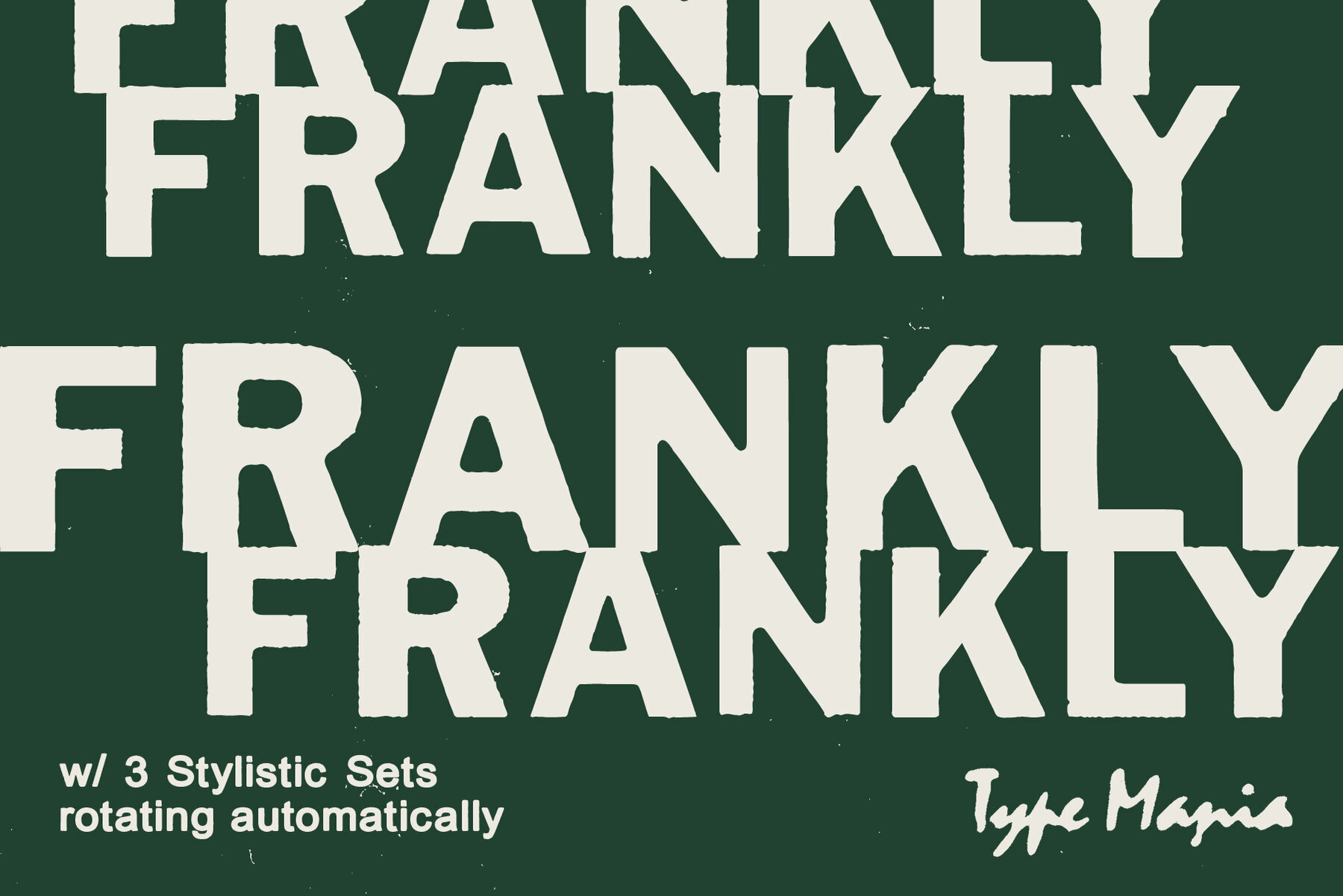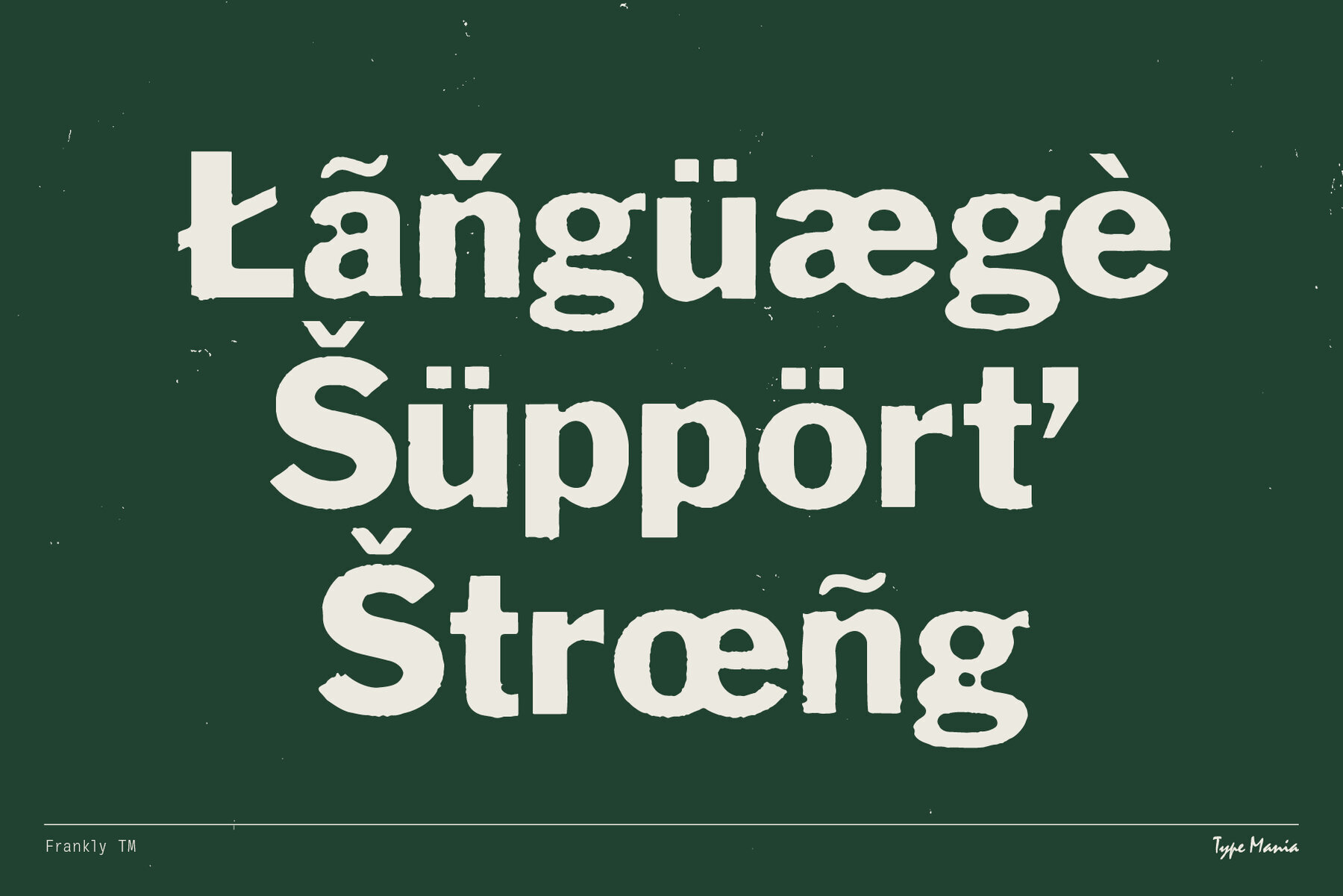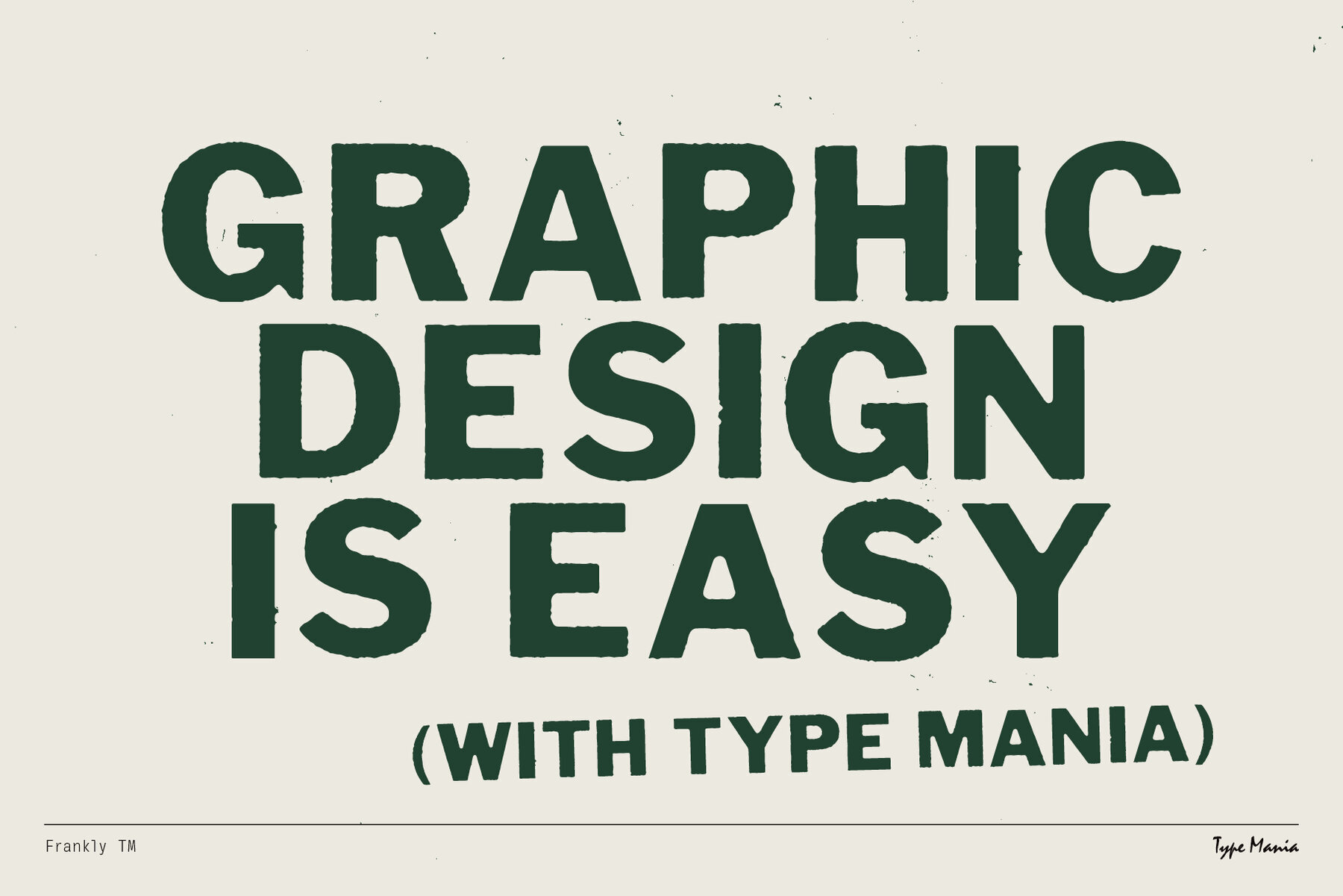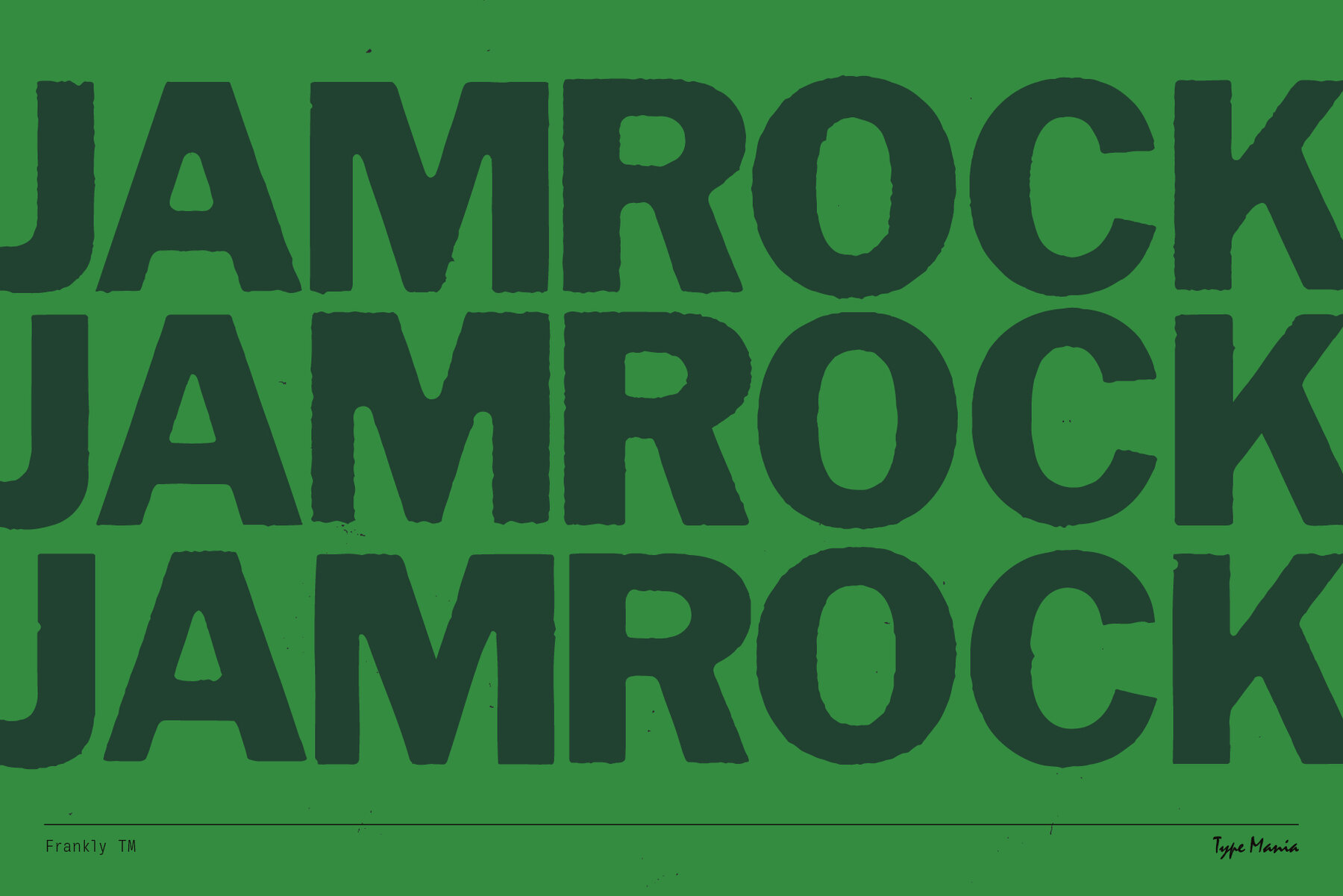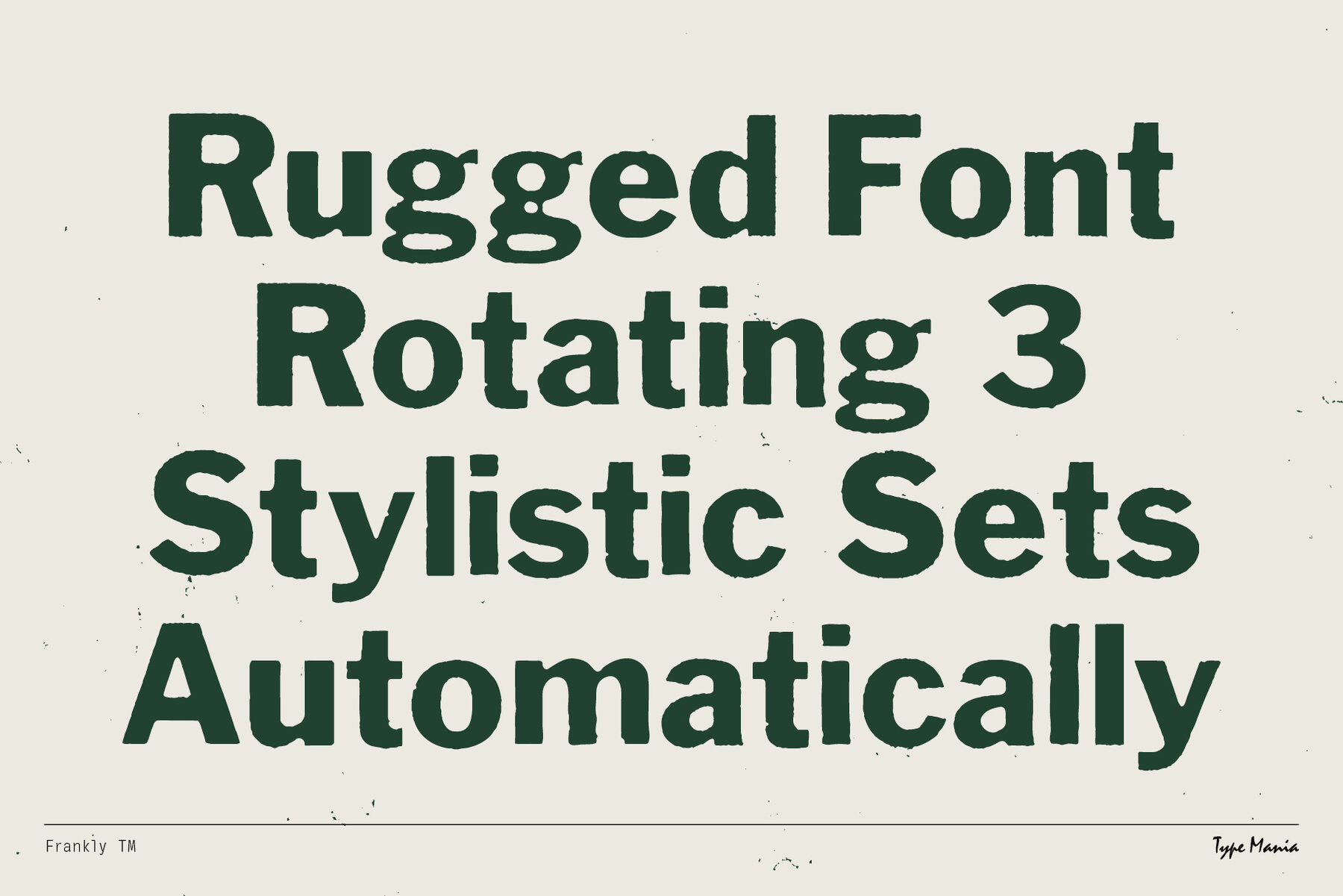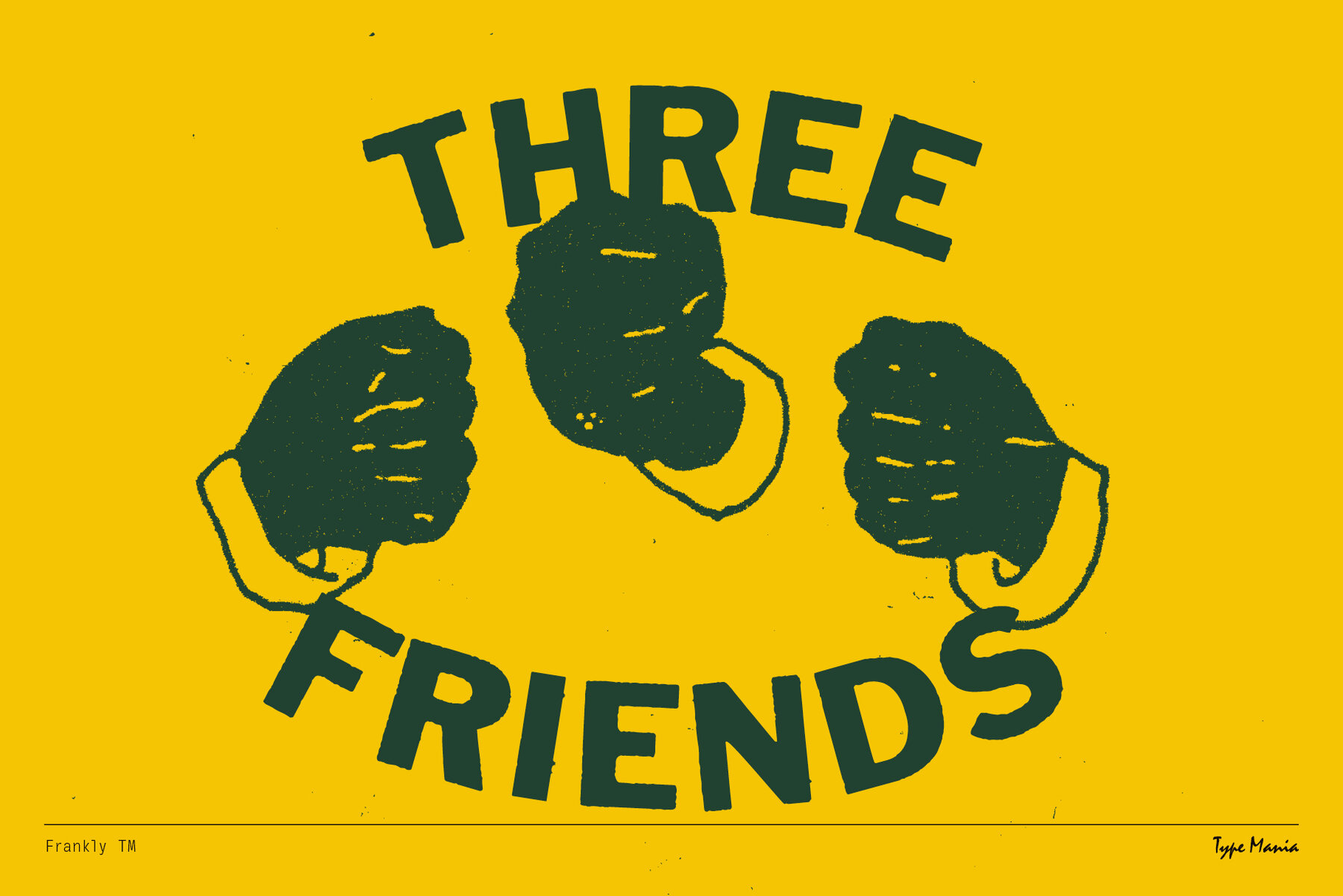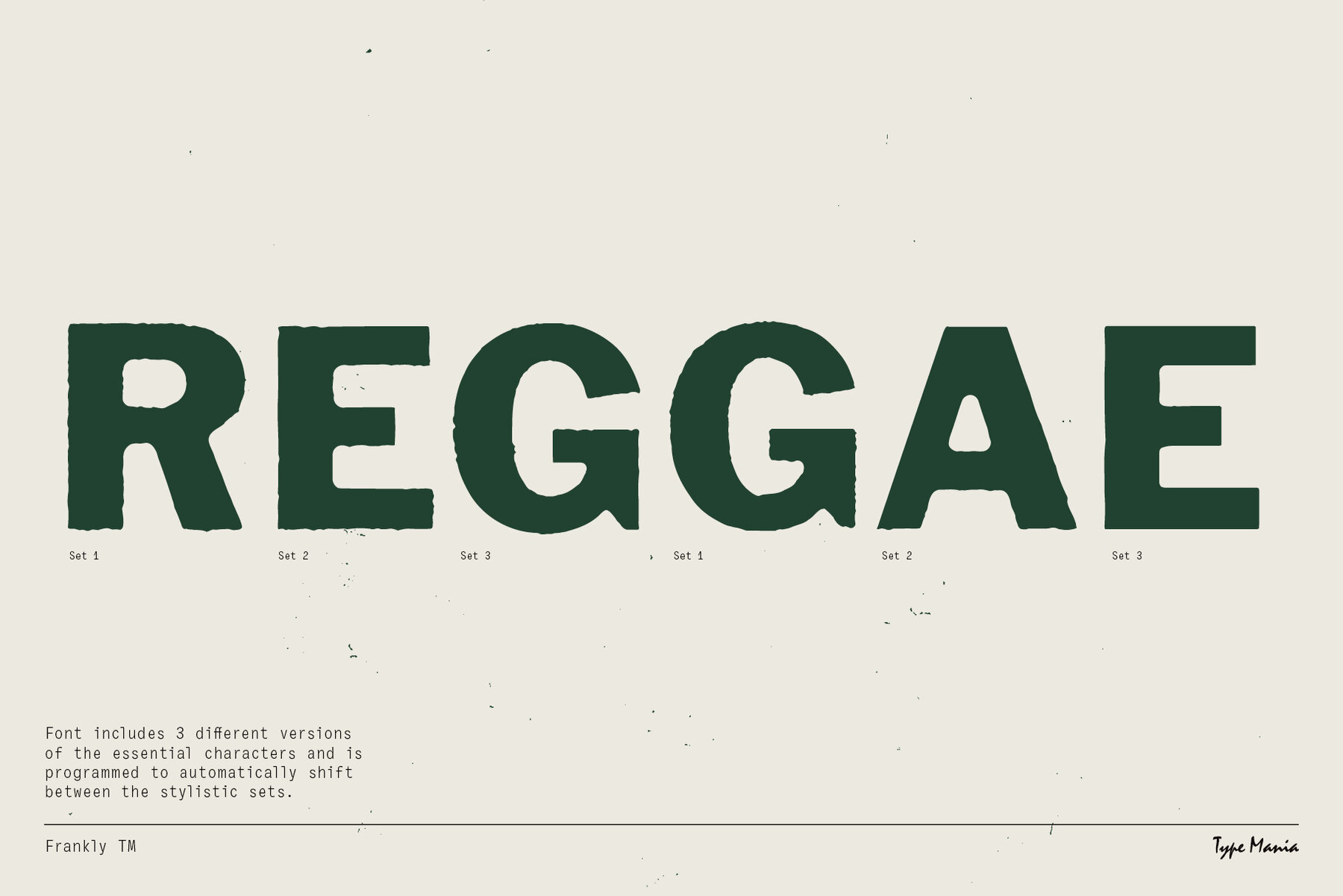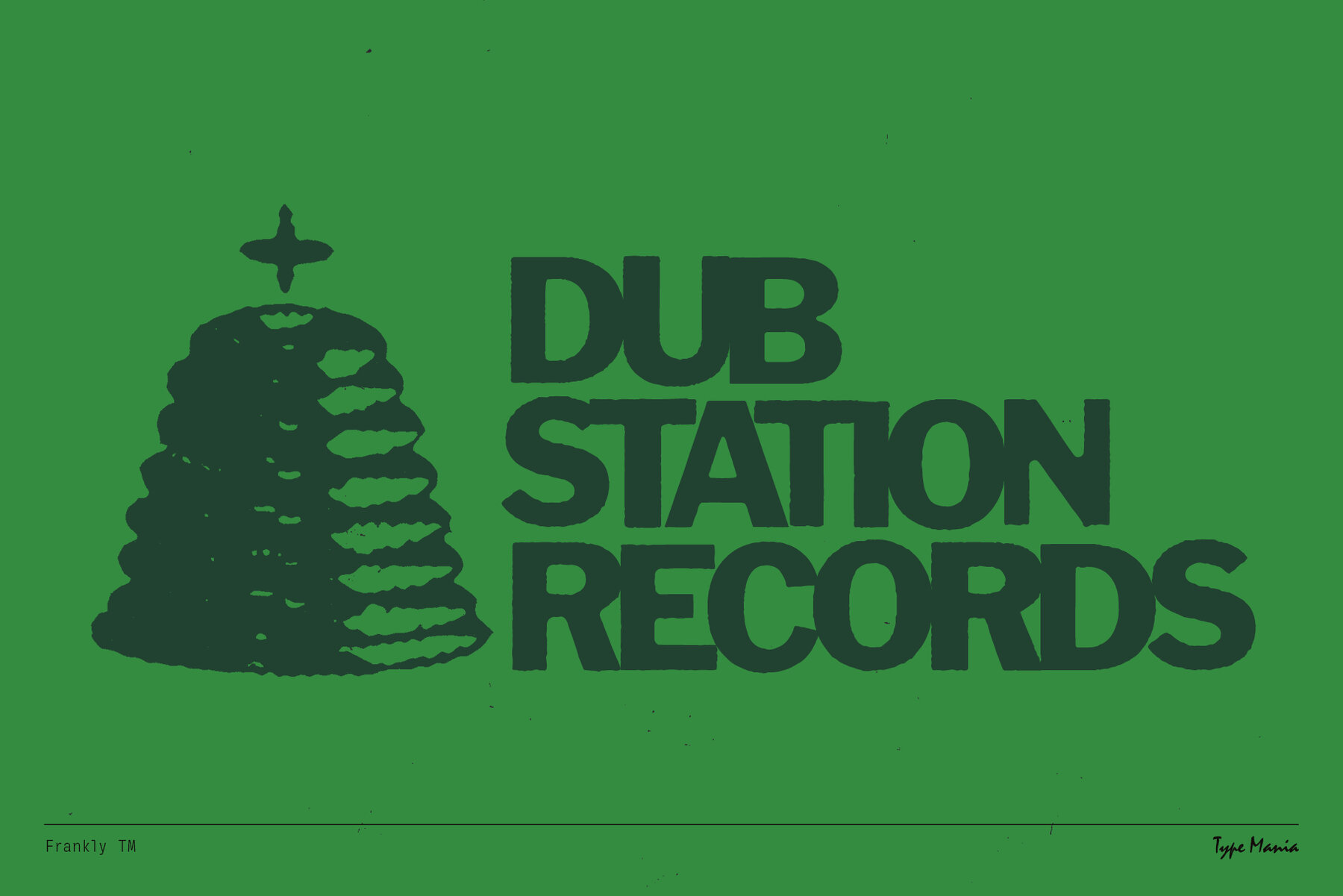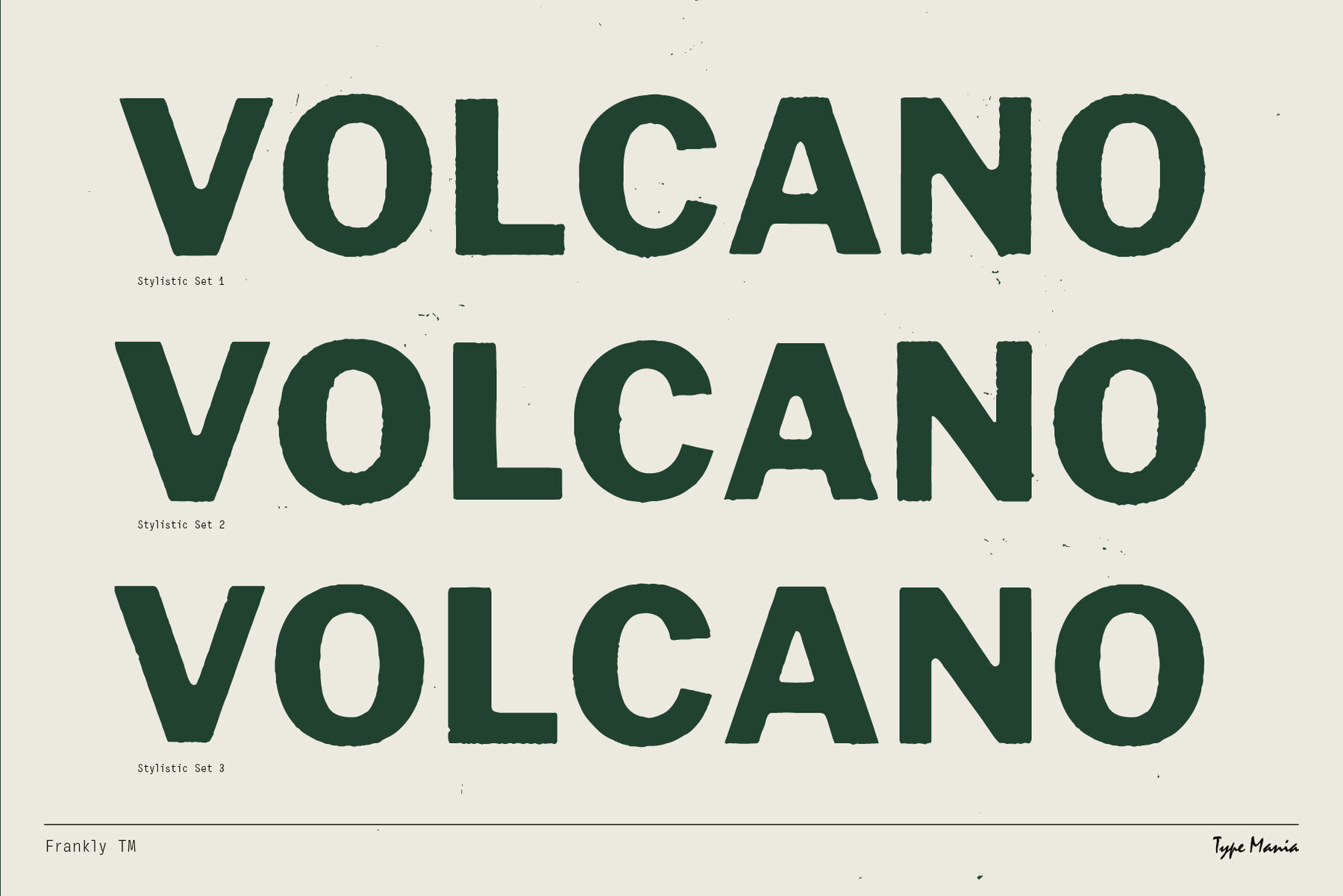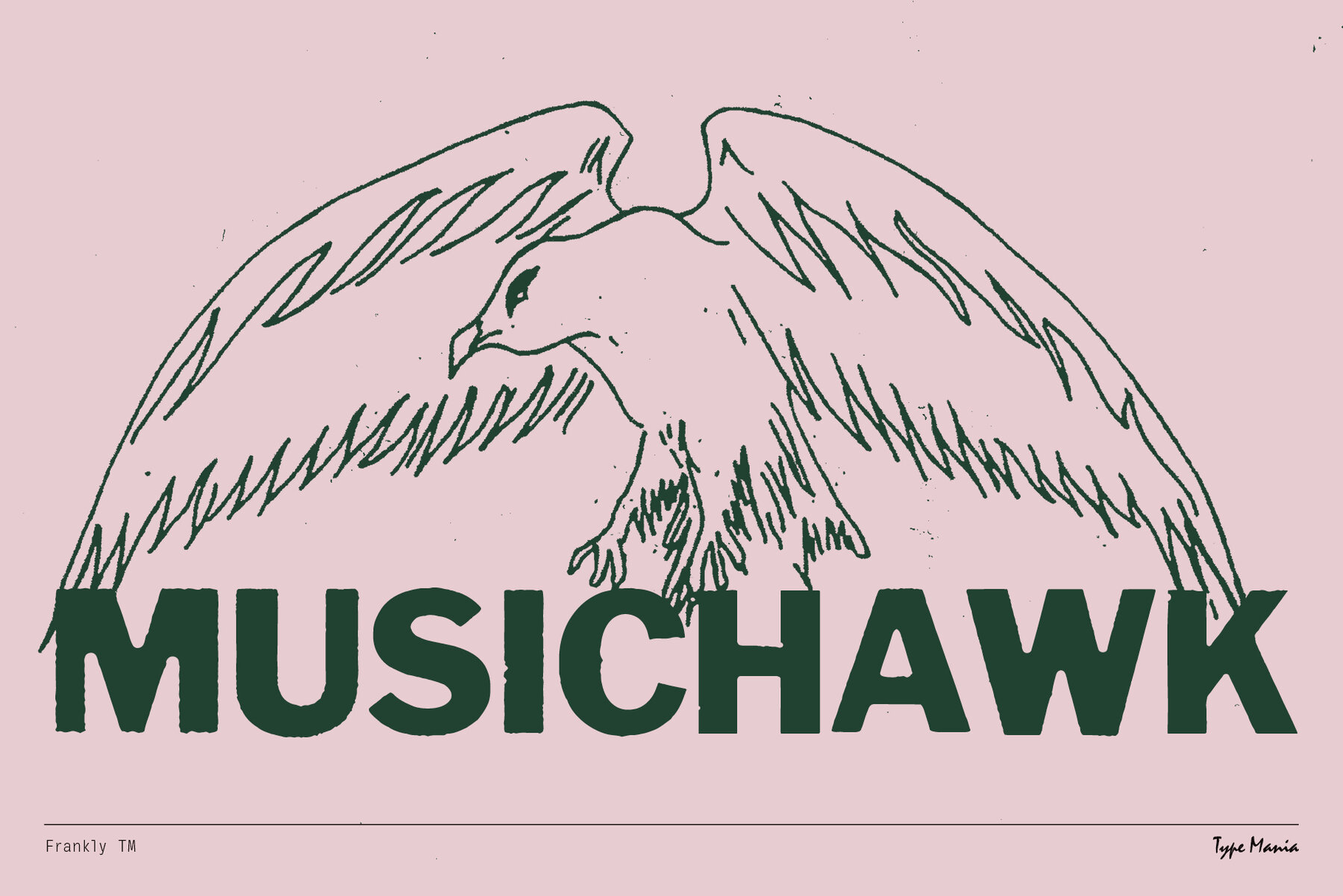
Frankly TM Font
Frankly TM Regular
Frankly TM is a unique typeface that beautifully captures the essence of traditional offset printing with its subtle imperfections and misalignments. Equipped with three stylistic sets, which automatically rotate when contextual alternates are enabled, this typeface adds an organic, tactile feel to your designs. Ideal for headlines, packaging, branding, or even reggae 45s, Frankly TM brings authenticity and charm to any project.
This typeface comes with extensive OpenType features, allowing seamless transitions between stylistic sets for a dynamic and naturally varied appearance. Frankly TM supports a wide range of languages, including Basic Latin, Western European, Euro, Central European, and Pan African Latin, making it versatile for global design applications. Whether you're crafting a striking headline or designing an eye-catching package, Frankly TM provides the raw aesthetic needed to make your project stand out.